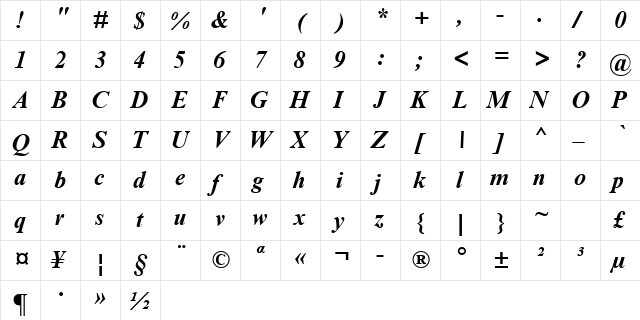
Times New Roman Greek Bold Inclined
Design Context for Times New Roman Greek Typeface
Times New Roman Greek is a composed and adaptable typeface that performs quietly and consistently across a wide range of design contexts. The heavy weight commands attention and anchors typographic hierarchies.